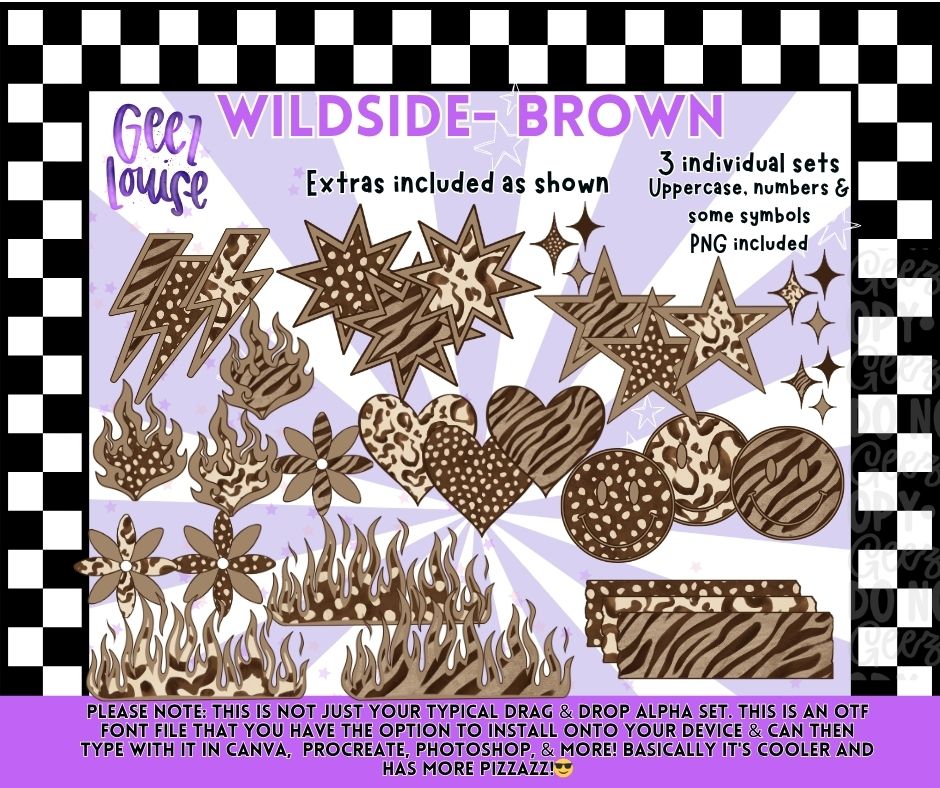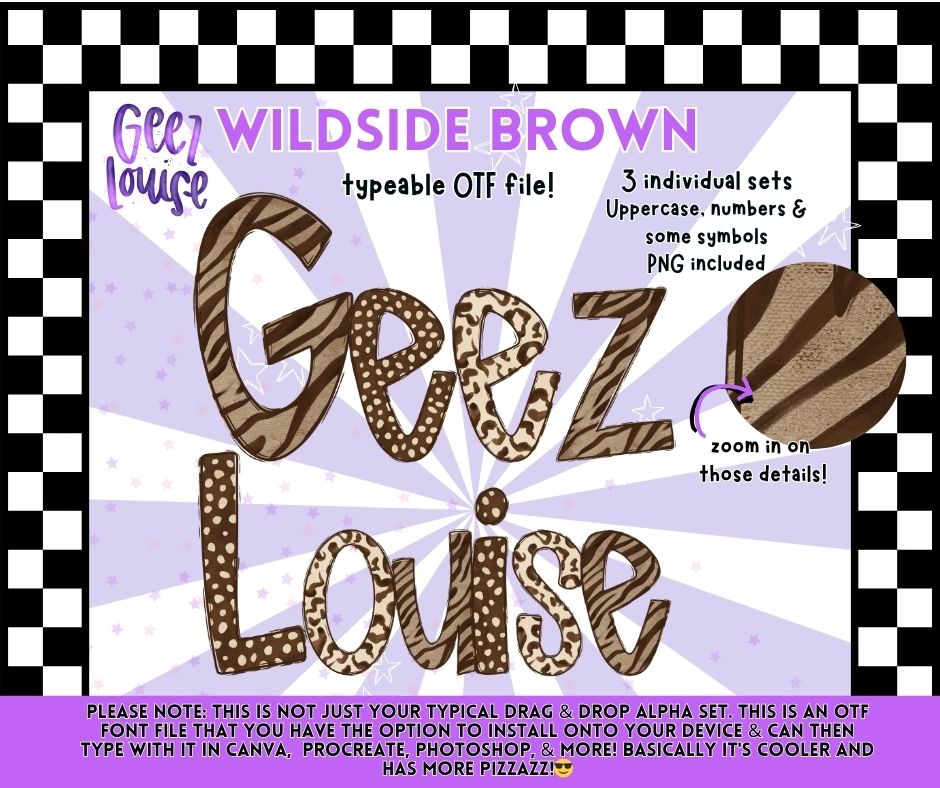
Wildside Brown OTF Font Bundle | Typeable Alpha Font with Extras & PNGs
Neutral tones meet wild boutique energy in the Wildside Brown OTF Font Bundle 🤎⚡
This edgy typeable alpha bundle includes 3 coordinating individual sets filled with trendy animal-inspired patterns, statement extras, and installable OTF font files perfect for creating standout apparel and digital designs.
✨ Extras Included:
• Lightning bolts
• Stars & sparkles
• Hearts
• Flames
• Flowers
• Pattern strips & graphic elements
🔥 Why You’ll Love It:
Wildside Brown brings cozy neutral vibes with just enough chaos to keep things interesting. It’s boutique-core with a side of animal print attitude 🐆🤎